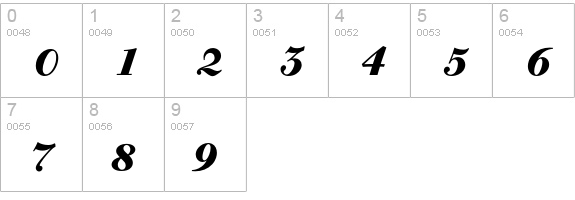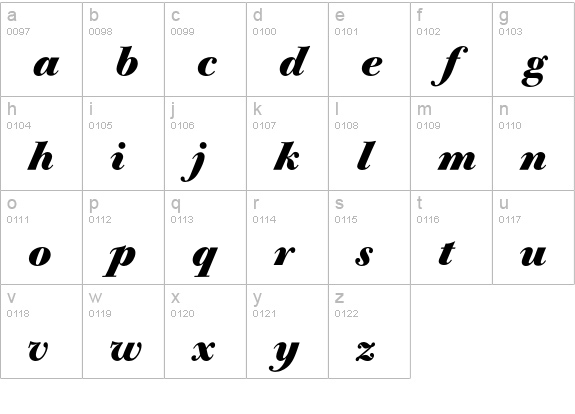
Bodoni Old Face Bold Italic Font Details
Bodoni Old Face Bold Italic is a strong, high-contrast, italic variant in the Bodoni typeface family \xE2\x80\x94 well suited to headlines, attention-grabbing titles, and strong calls-to-action.
Bodoni Old Face Bold Italic is a striking and elegant font that exudes sophistication and classic charm. With its bold and italicized design, this typeface commands attention and adds a touch of luxury to any project. The sharp serifs and graceful curves of Bodoni Old Face Bold Italic create a visually appealing contrast that makes it perfect for headlines, titles, and other prominent text. What sets Bodoni Old Face Bold Italic apart is its timeless appeal and versatility. Whether used in print or digital media, this font effortlessly elevates the overall look and feel of a design. Its bold weight conveys confidence and strength, while the italicized style adds a touch of flair and dynamism. The best part? Bodoni Old Face Bold Italic is free to download at FontsMarket.com. Now you can enjoy the beauty and sophistication of this exquisite font without any cost. Don't miss out on the opportunity to enhance your projects with the timeless elegance of Bodoni Old Face Bold Italic. Download it today and see the difference it can make in your designs.